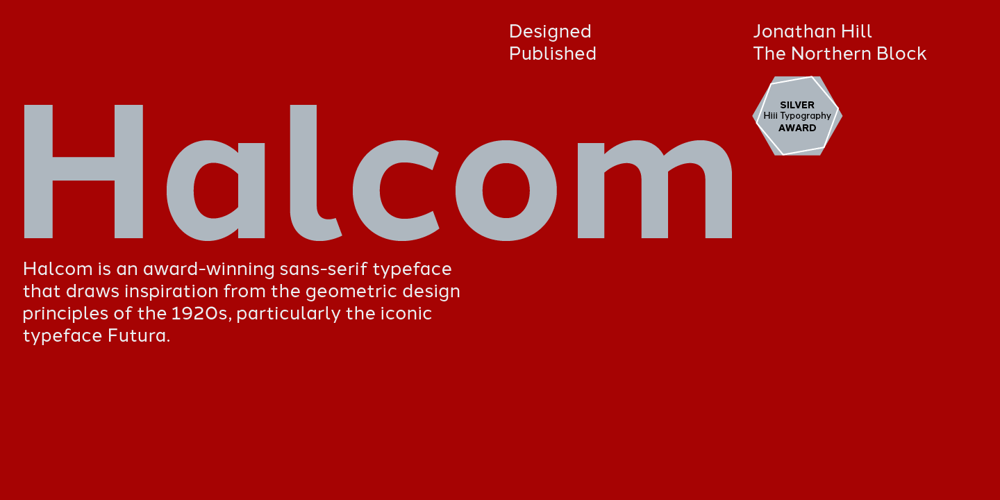
Halcom
Halcom font
Halcom Font Family was designed by Jonathan Hill and published by The Northern Block. Halcom contains 20 styles and family package options. A modern sans serif typeface inspired by the historic geometric’s of the 1920’s, specifically Futura. The design is not a simple pastiche of what went before this is much more than that. It is a close investigation to how Futura inspired other type designs like Avenir and helped push the boundary of what is a modern typeface of its generation. Overlaying perfect geometric shapes careful adjustment is made for each character and each corner to a point of balance between pure mathematics and optical correctness. The result is a distinctively modern geometric font family that is strikingly simple in design yet perfectly pleasing to the readers eye. Details include 550 characters with an alternative lowercase a, g and y, five variations of numerals, manually edited kerning and Opentype features.